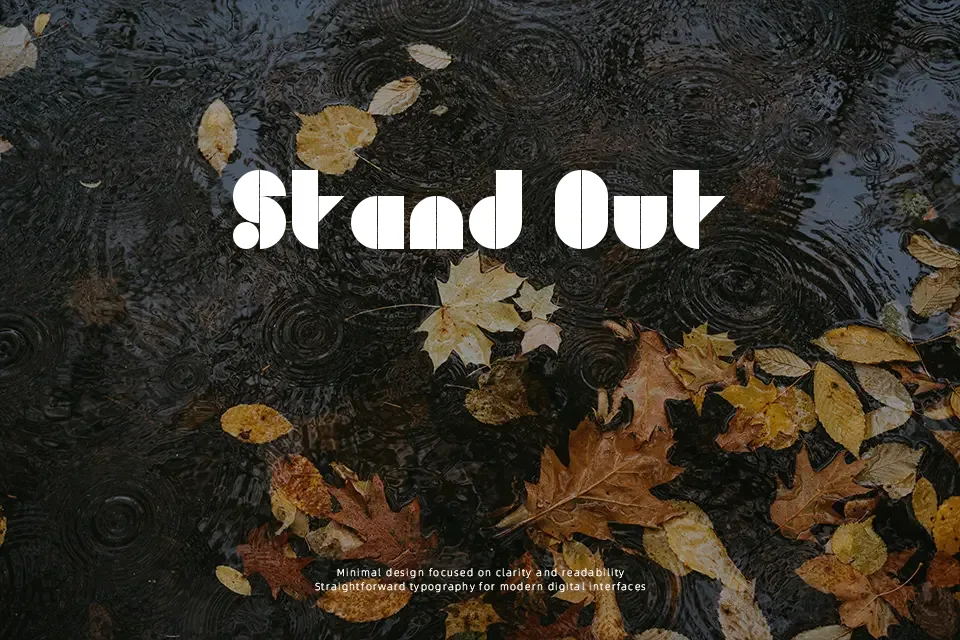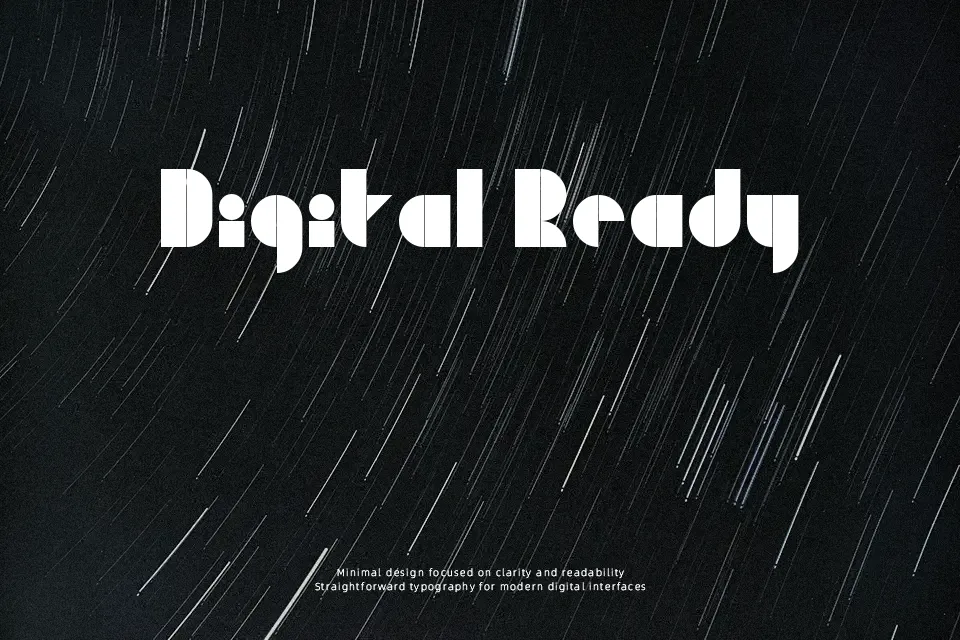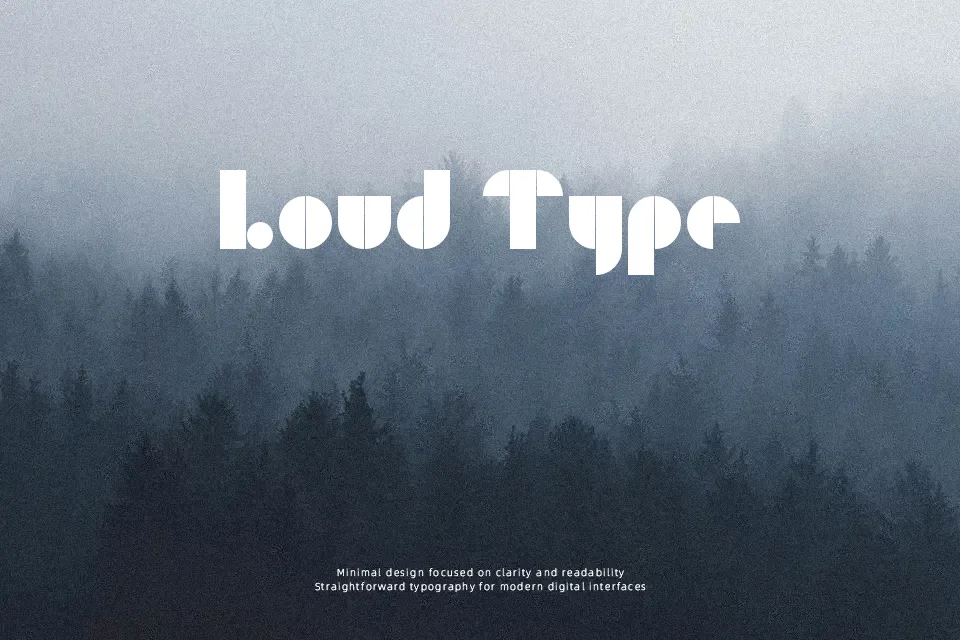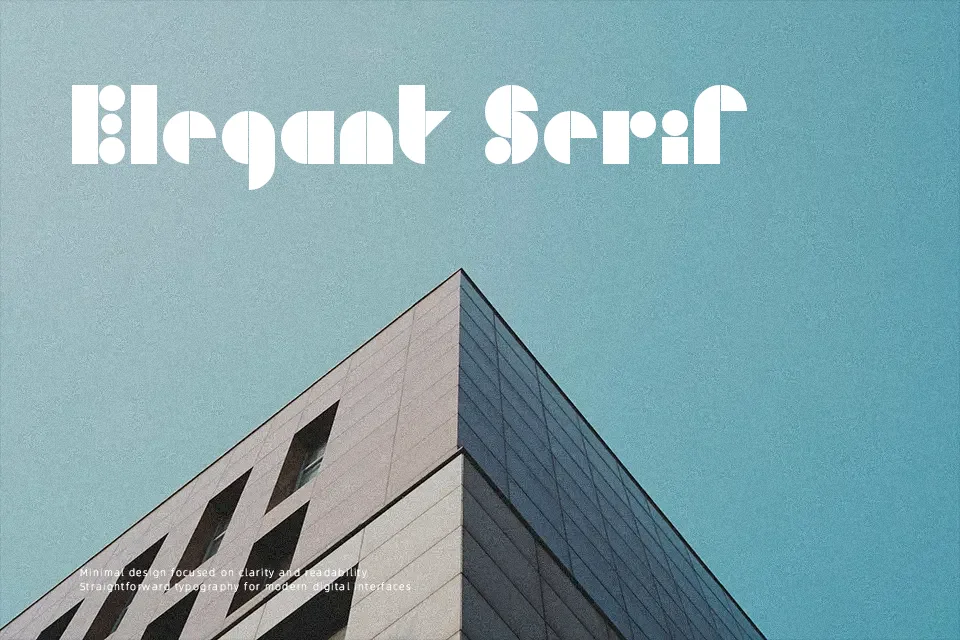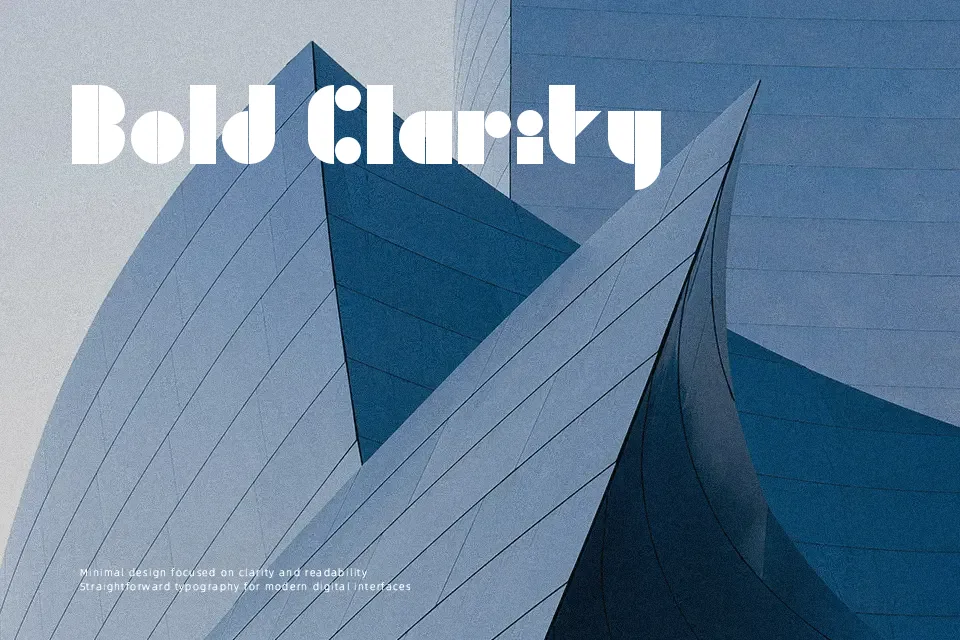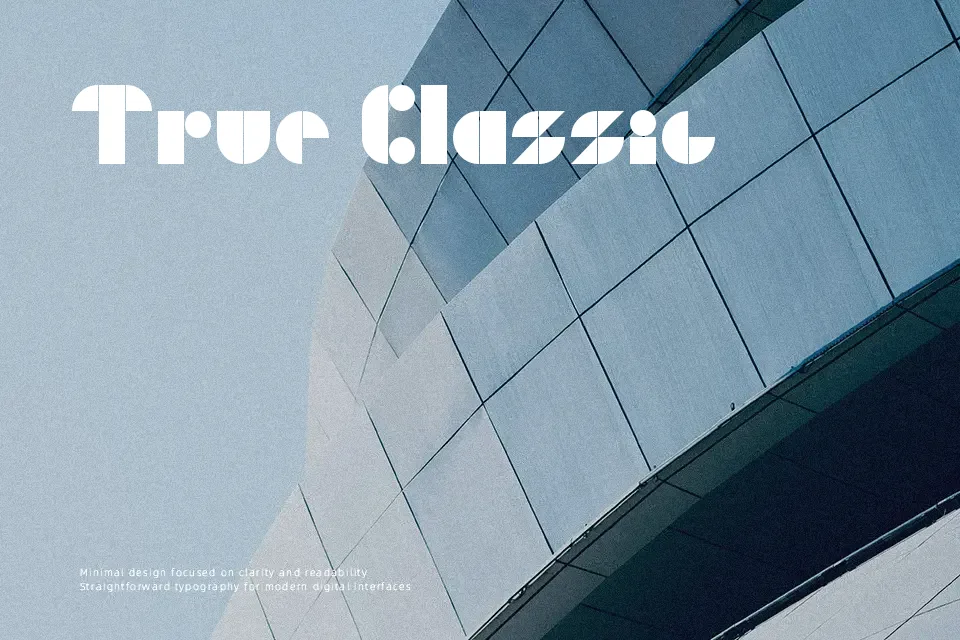
Soul Festival Font
Soul Festival Font uses thick, rounded display forms with flowing curves and playful, uneven details that give each word a strong retro presence. The letterforms feel broad rather than compact, and their decorative contours create an animated rhythm in short lines of text. It is most effective for large headlines, poster titles, and packaging where the shapes have room to register. The spacing supports readable display settings, though the ornamental forms become harder to scan when reduced. In practical use, it works better as a visual focal point than as a typeface for extended reading.
Best For: music festival posters,retro event headlines,album cover titles,product packaging accents
Perfect for headline, music, and packaging, with a bold and decorative style.